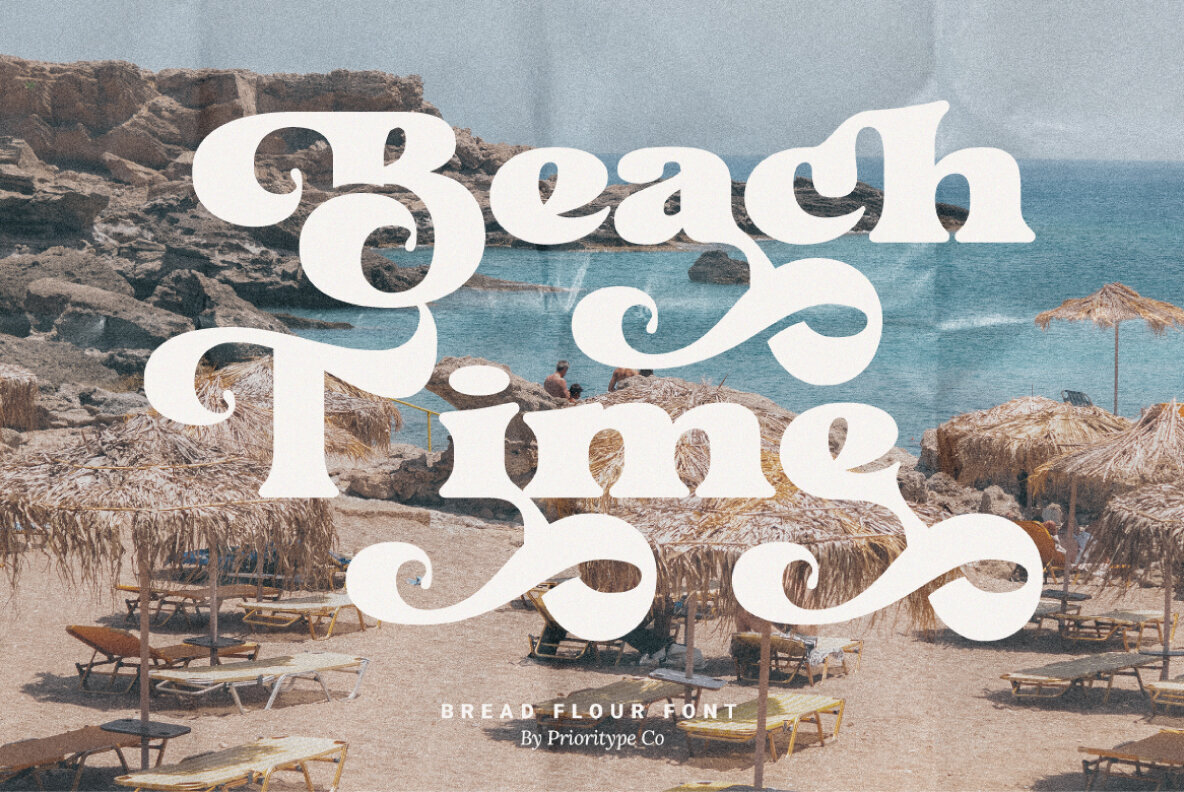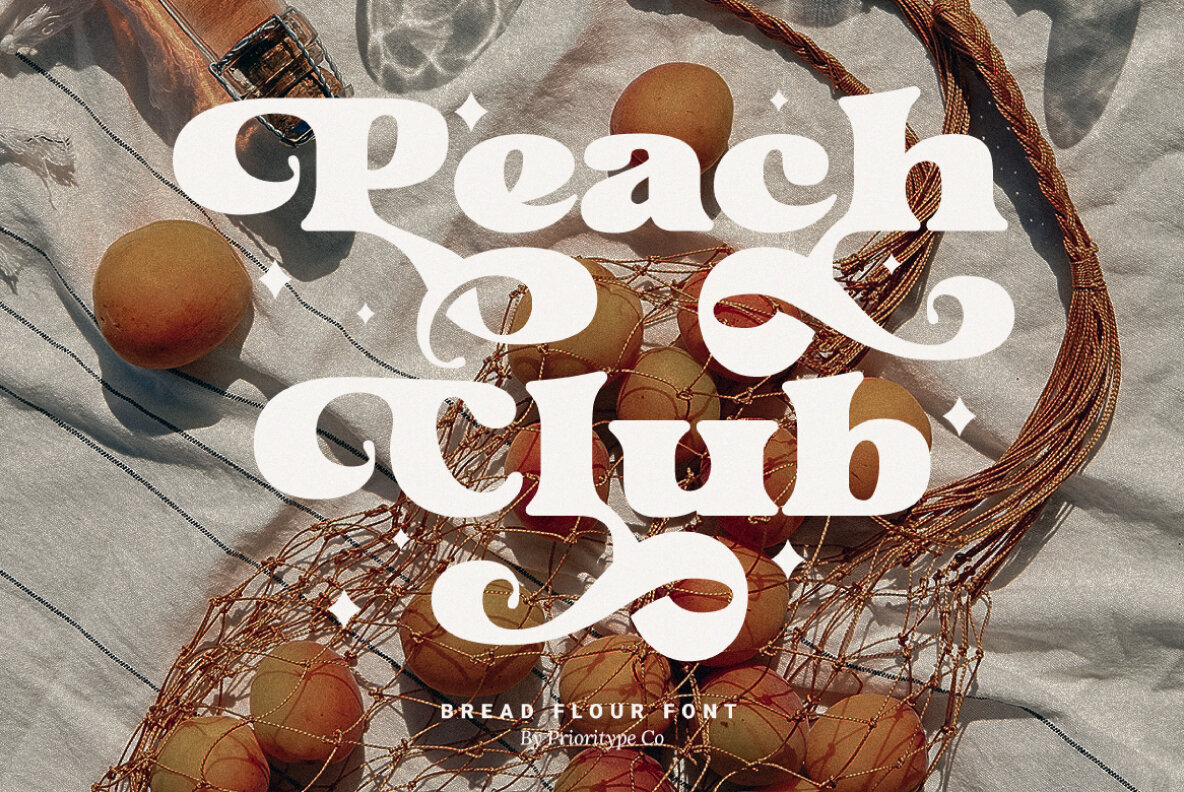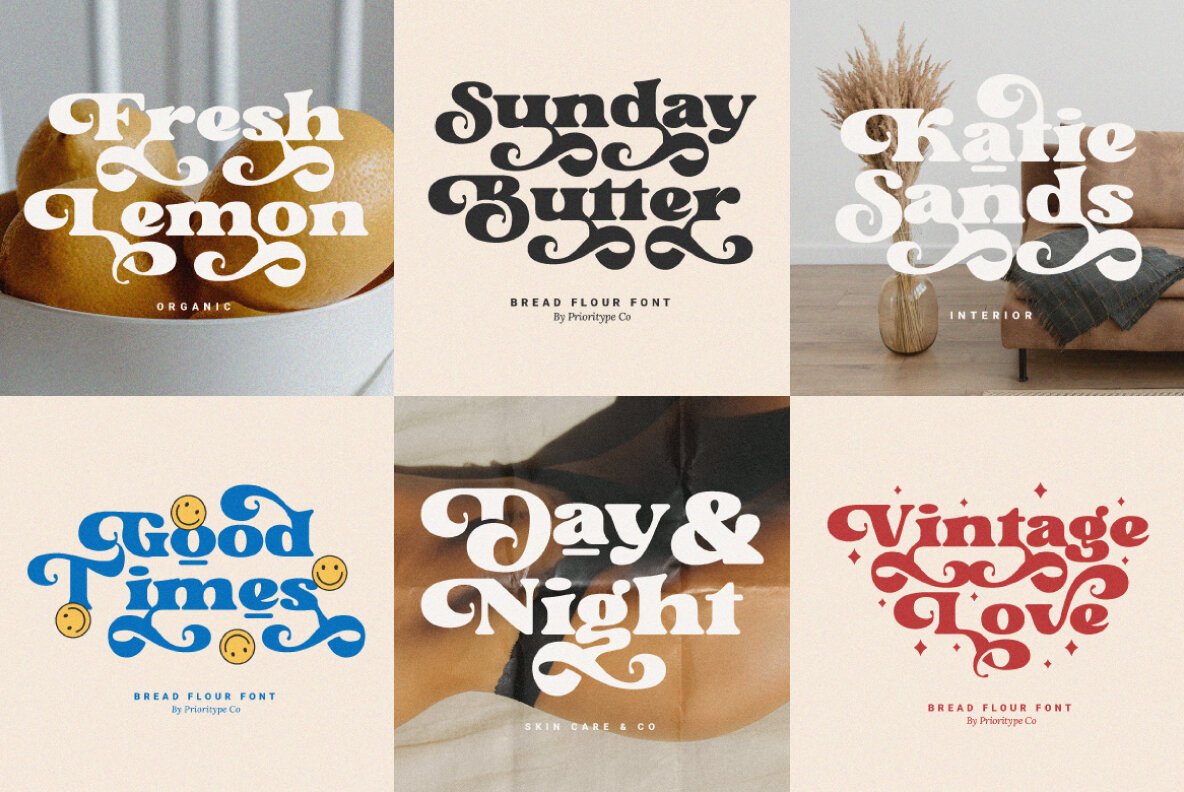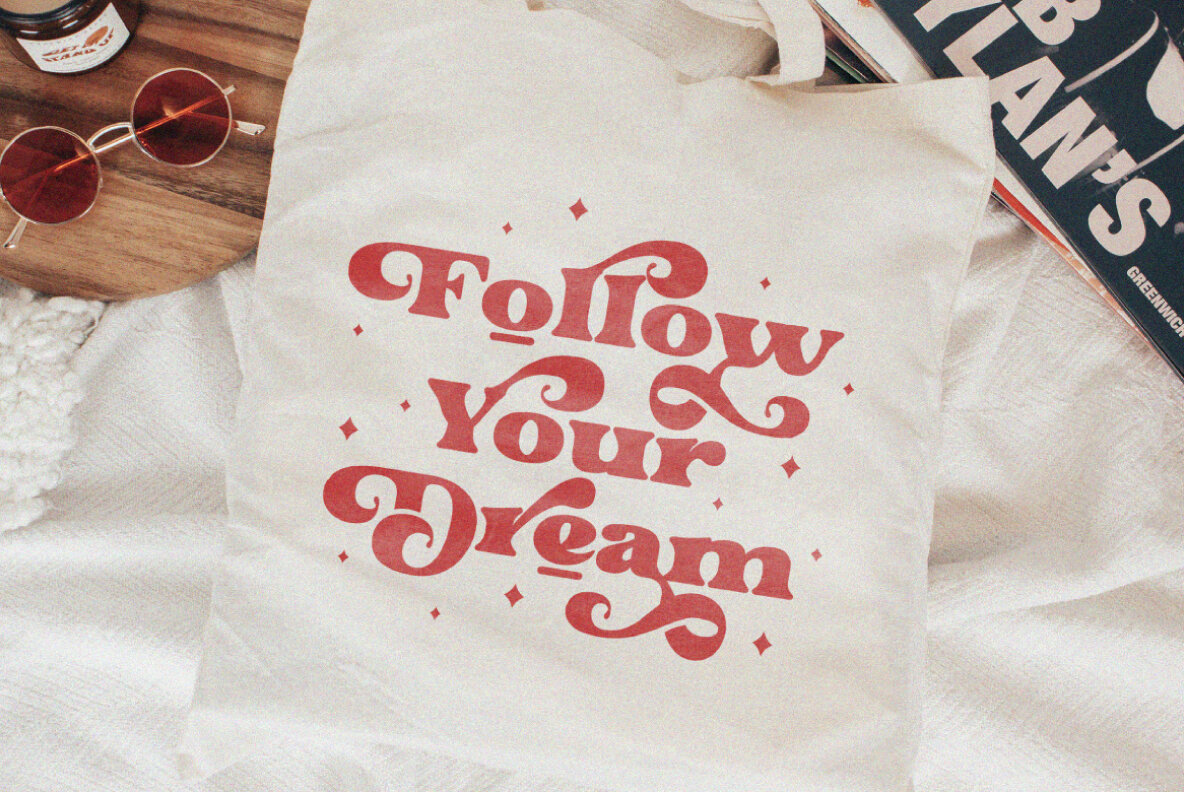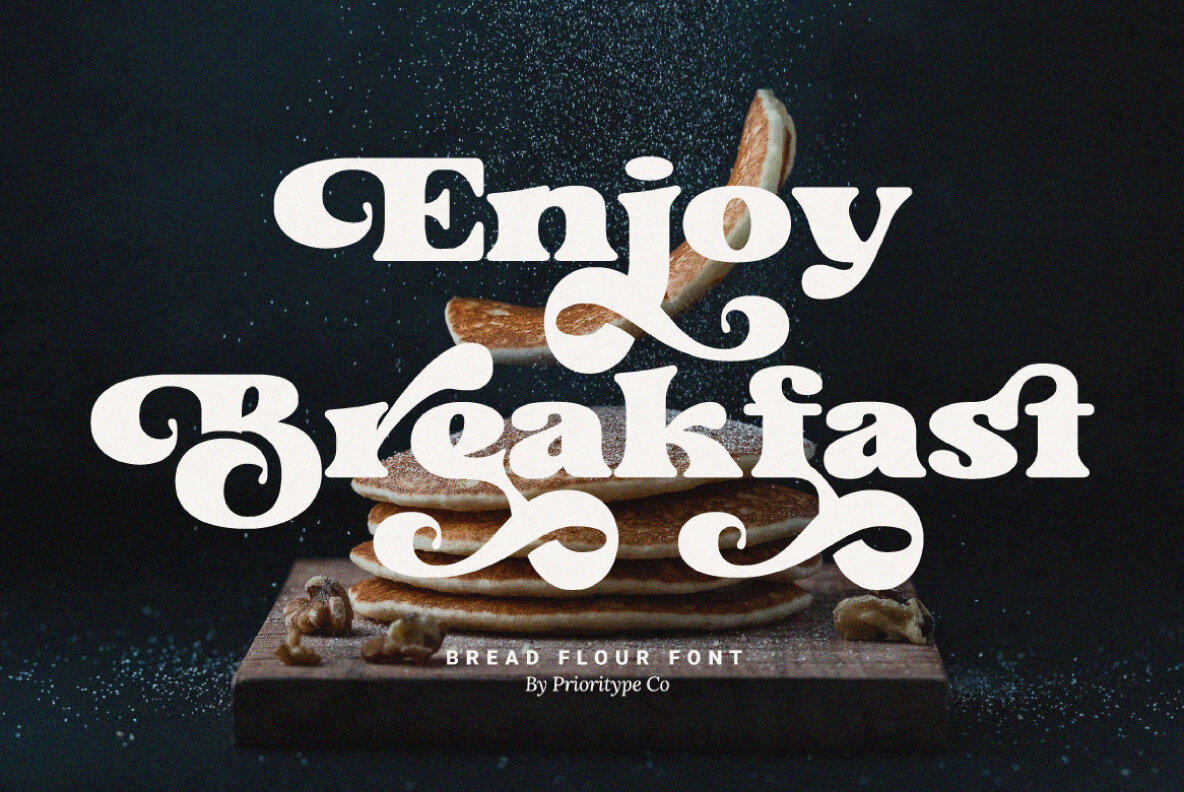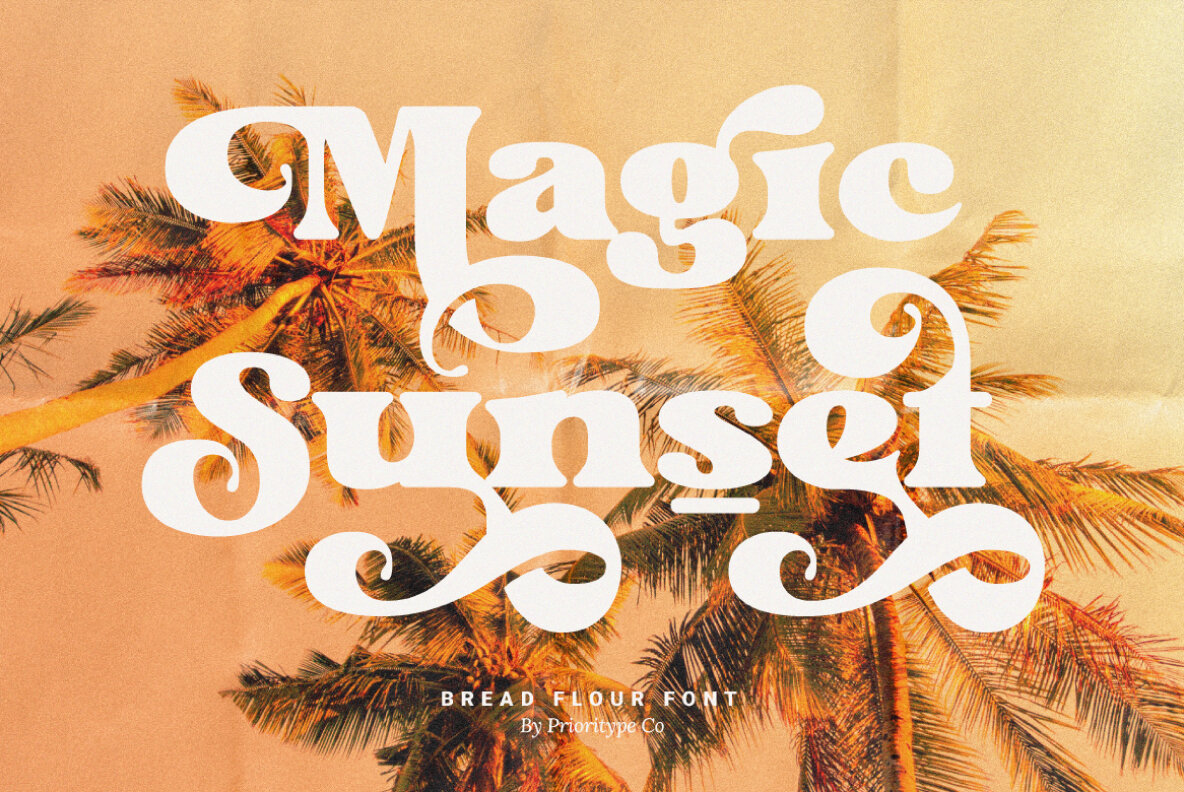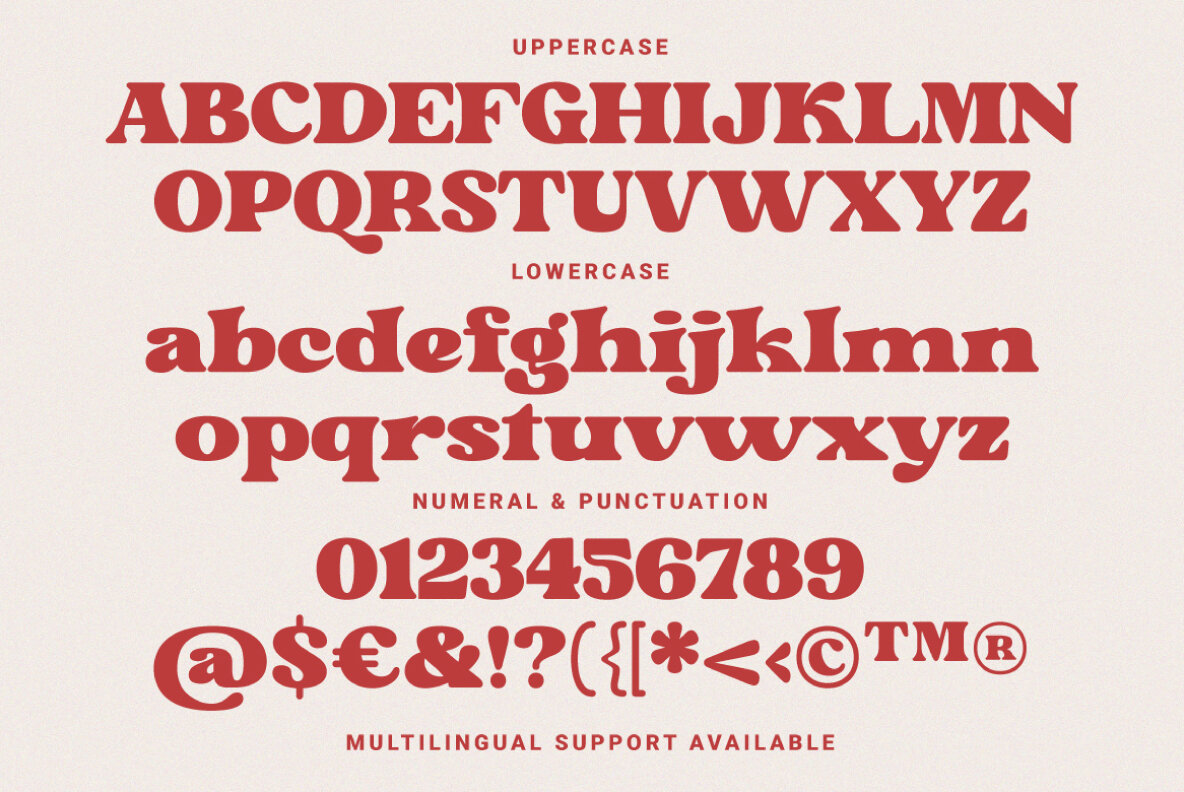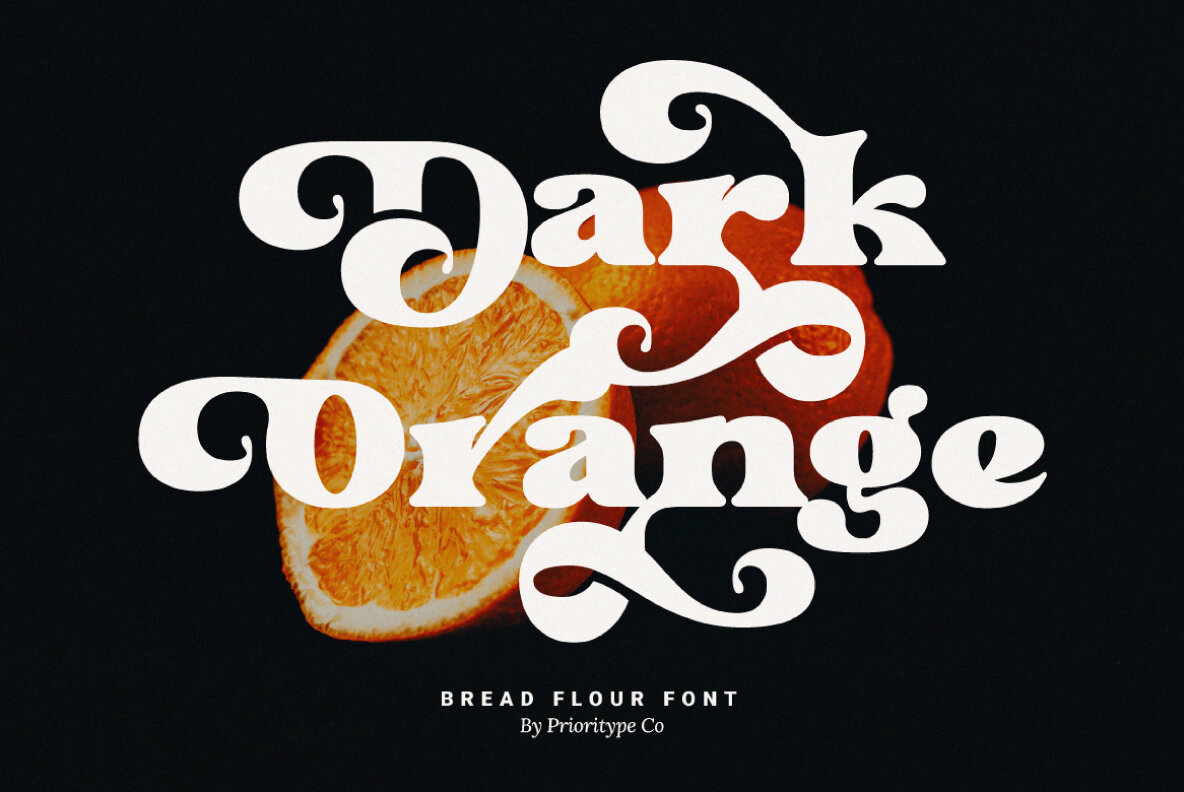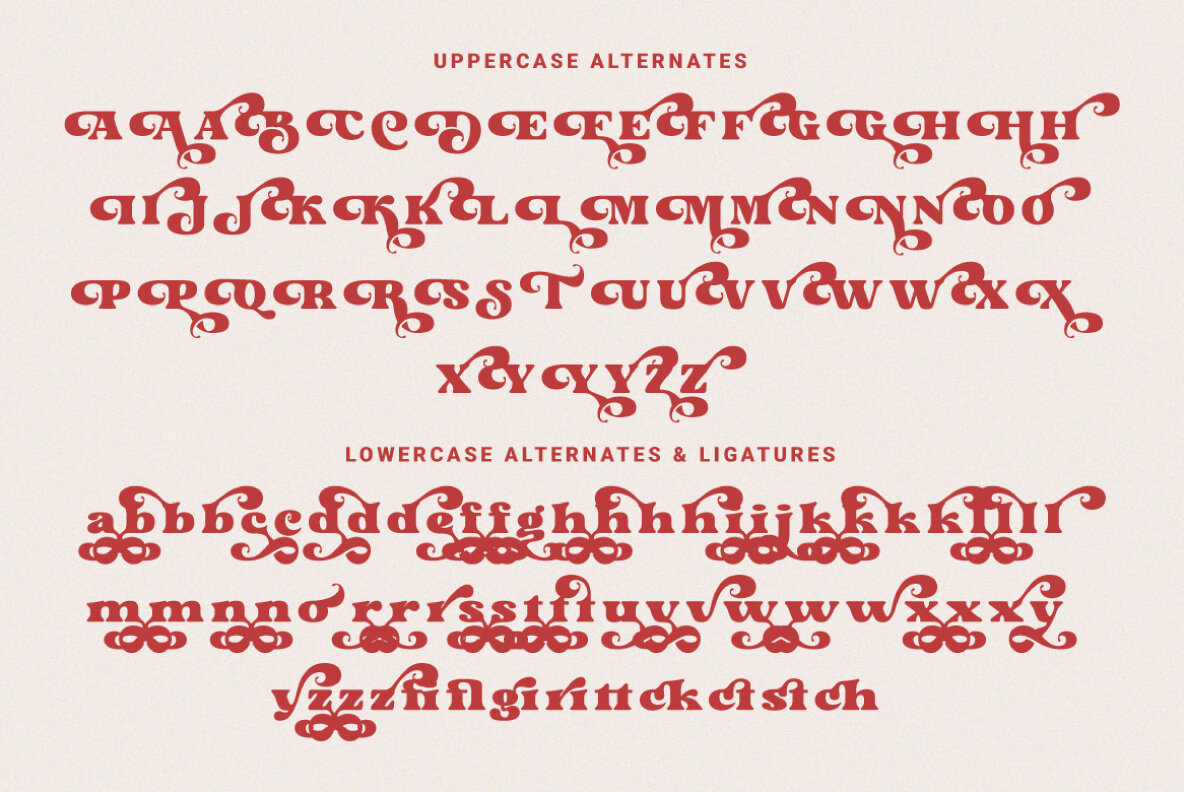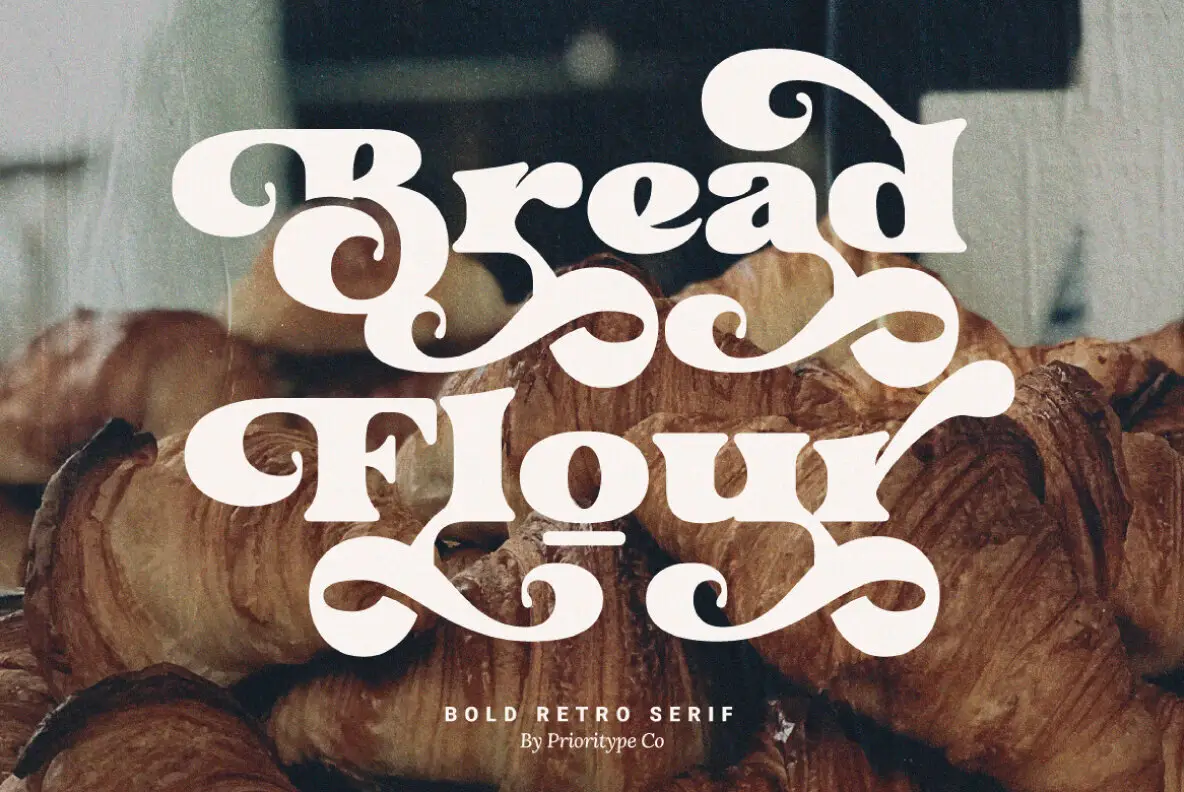
Bread Flour Font
Bread Flour
Bread Flour is a robust serif font that exudes a nostalgic, retro vibe. Its thickness and bold design make it ideal for capturing attention across various design projects. With a range of stunning character alternatives, it's perfect for bringing an extra layer of creativity to your work, whether you're crafting headlines, creating brand identities, designing logos, or producing merchandise.
The font comes equipped with a comprehensive range of features including uppercase, lowercase, numerals, punctuation, and multilingual support. It also includes a collection of alternates and ligatures, all PUA encoded for ease of use. Bread Flour supports a wide array of languages, making it versatile for global applications. Whether you're working in English, French, German, or less common languages like Machame or Manx, this font can accommodate your needs, ensuring your designs are both striking and inclusive.